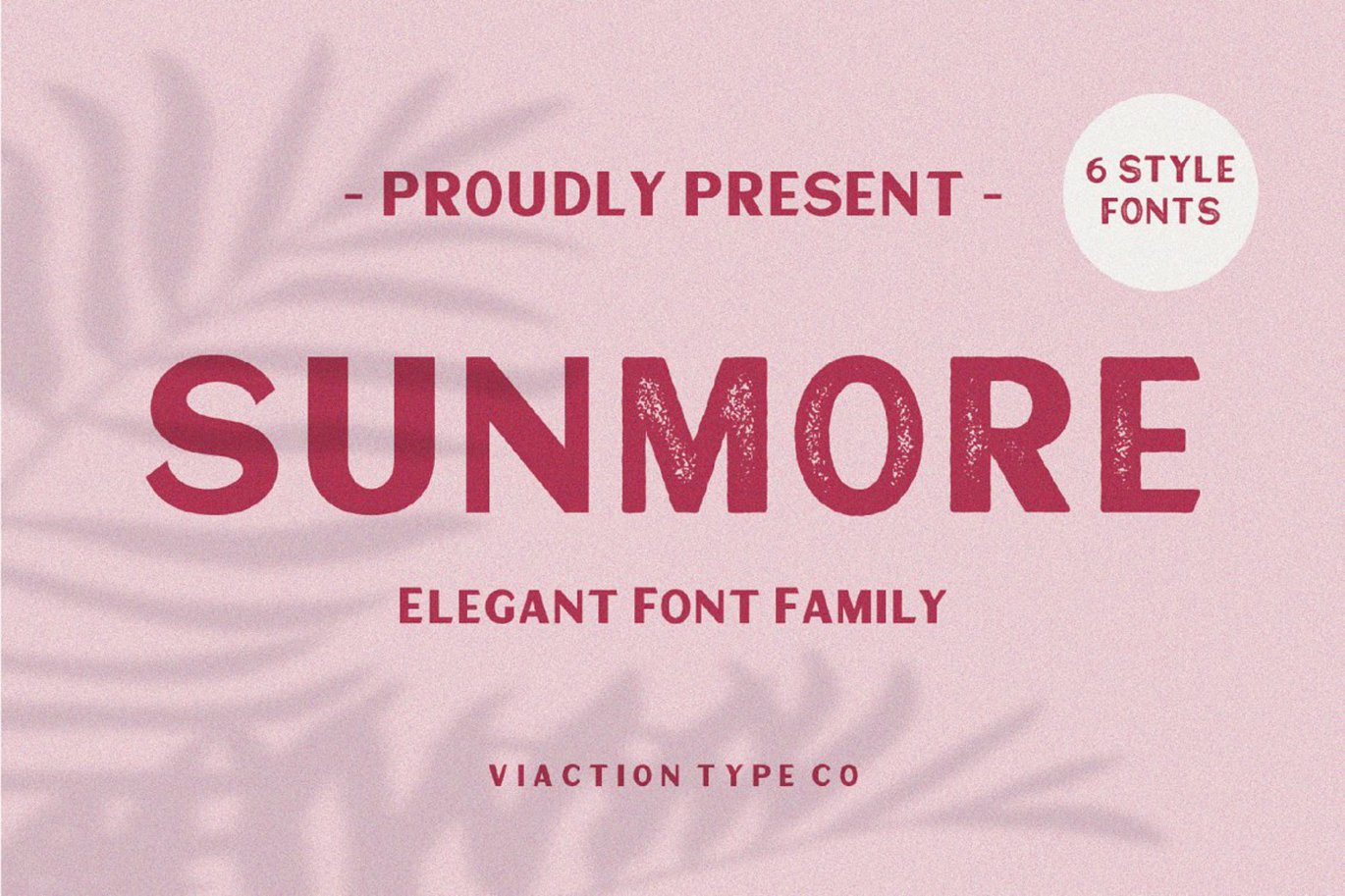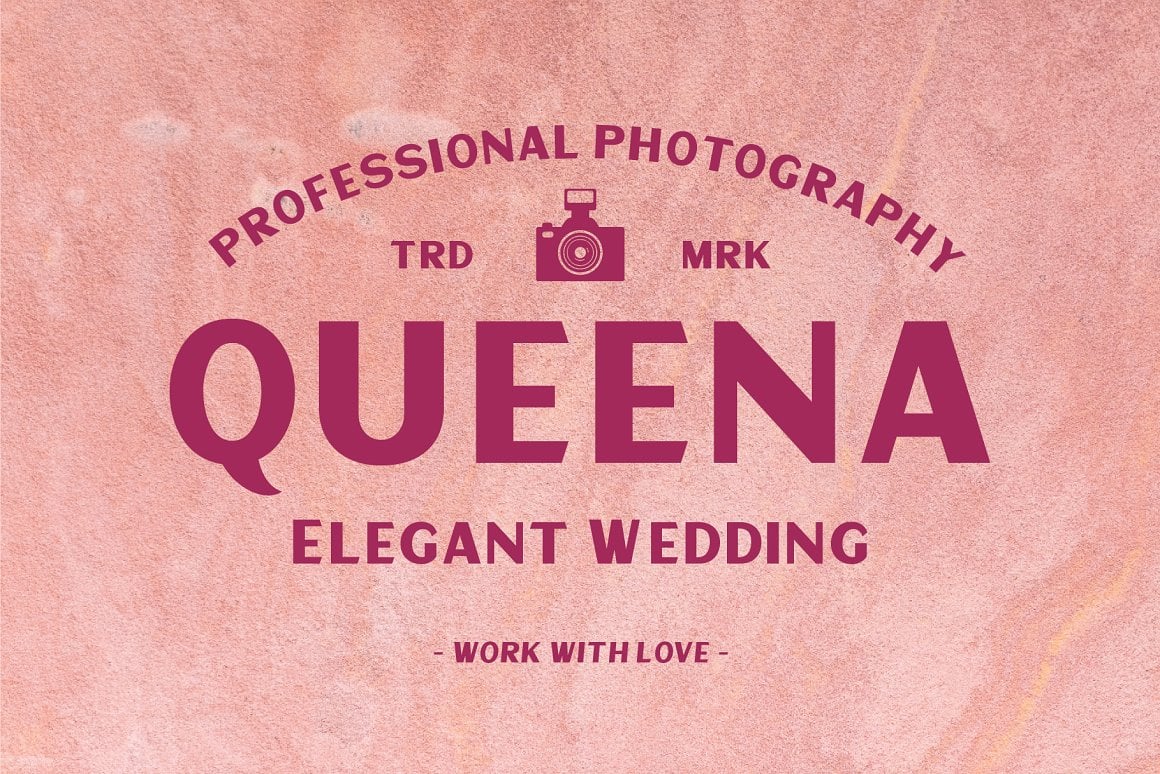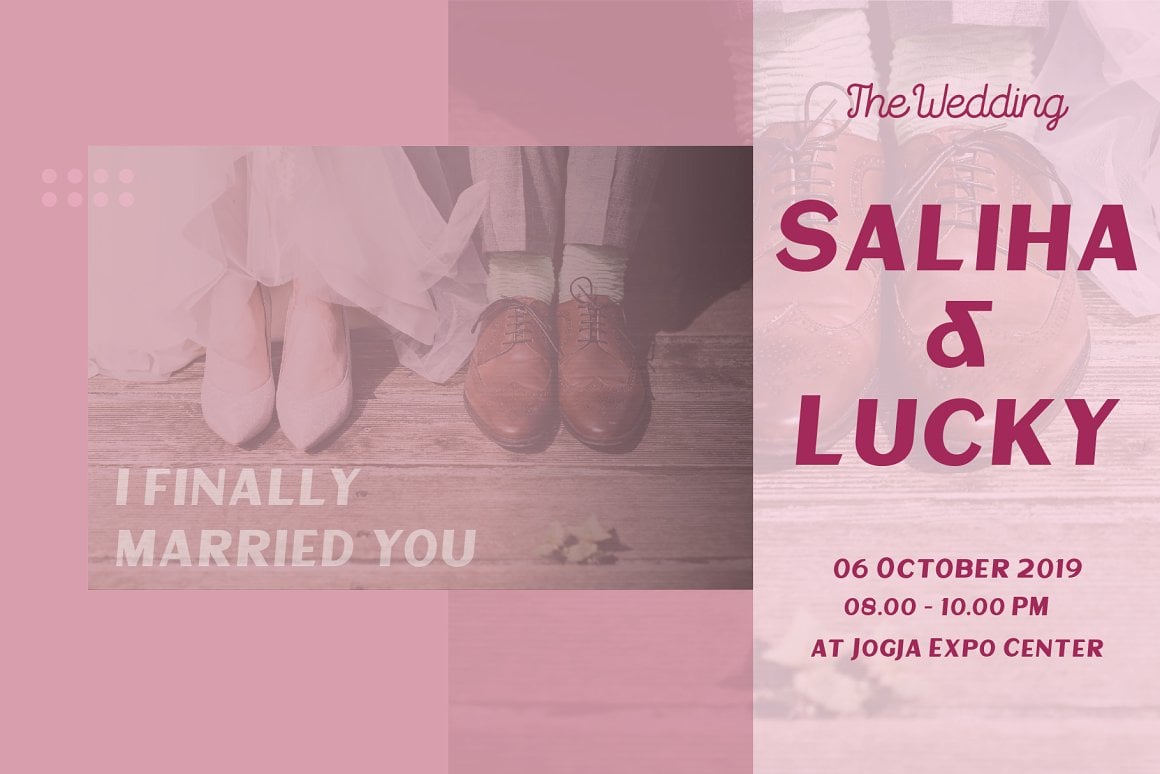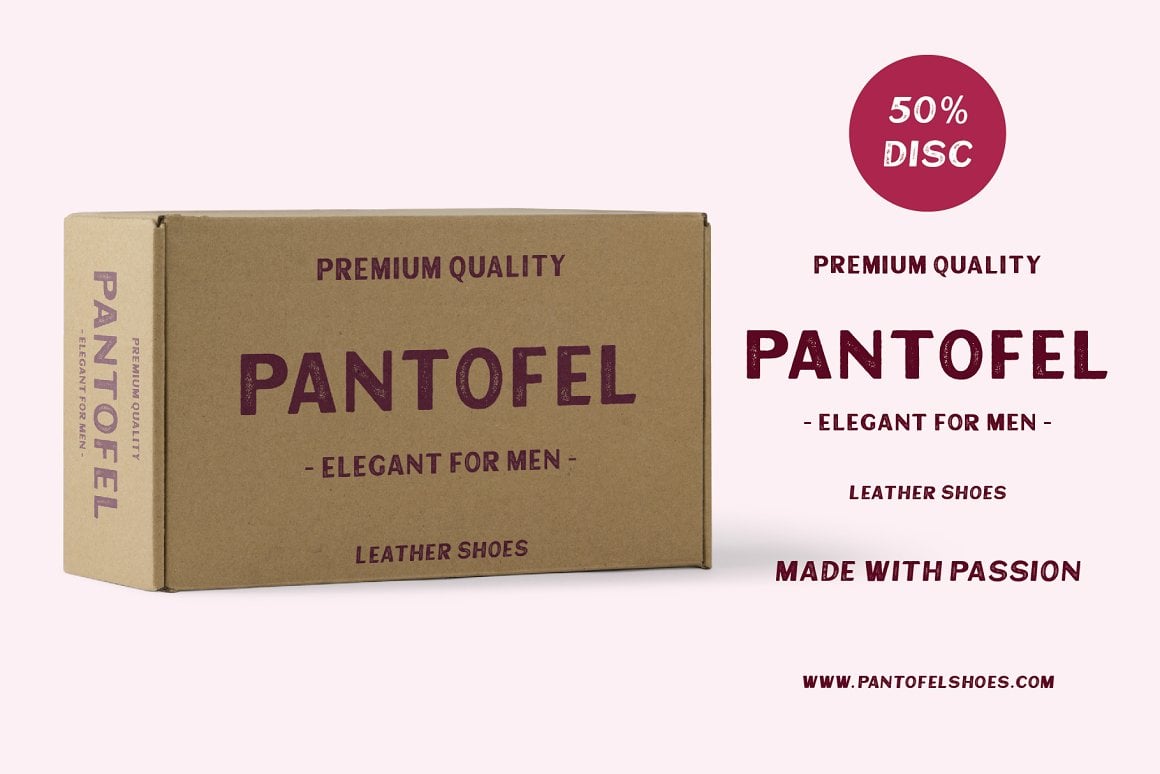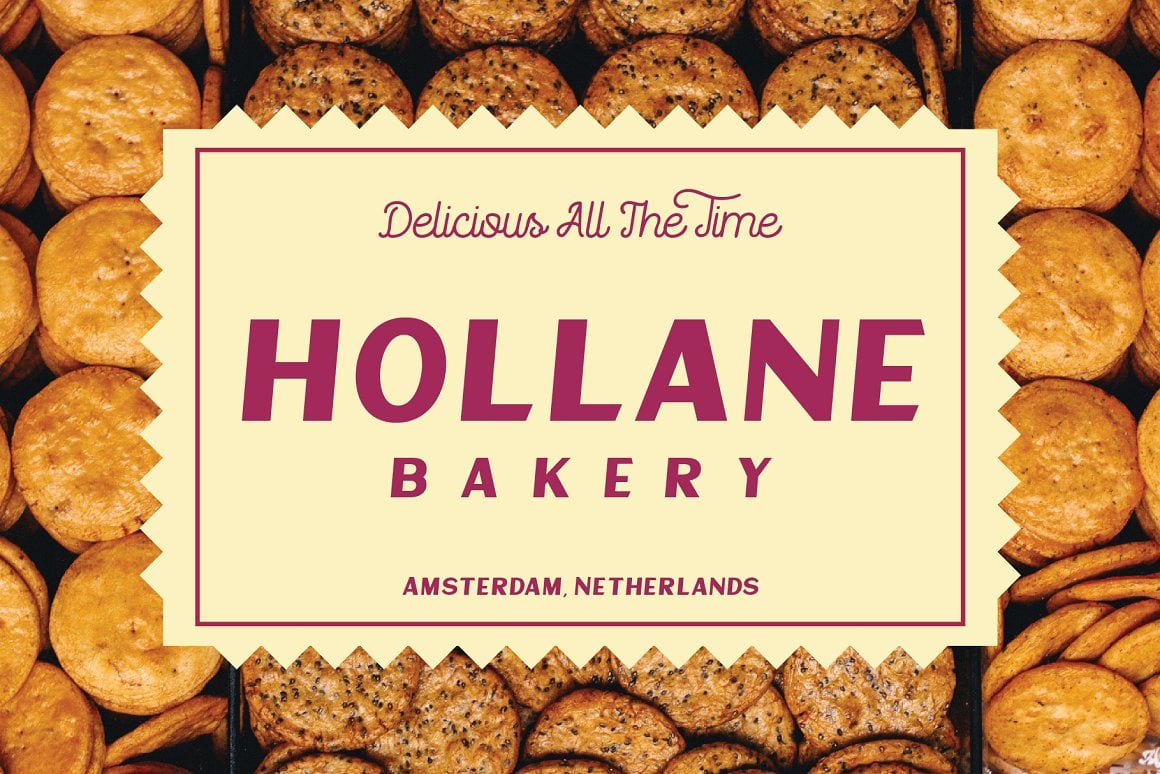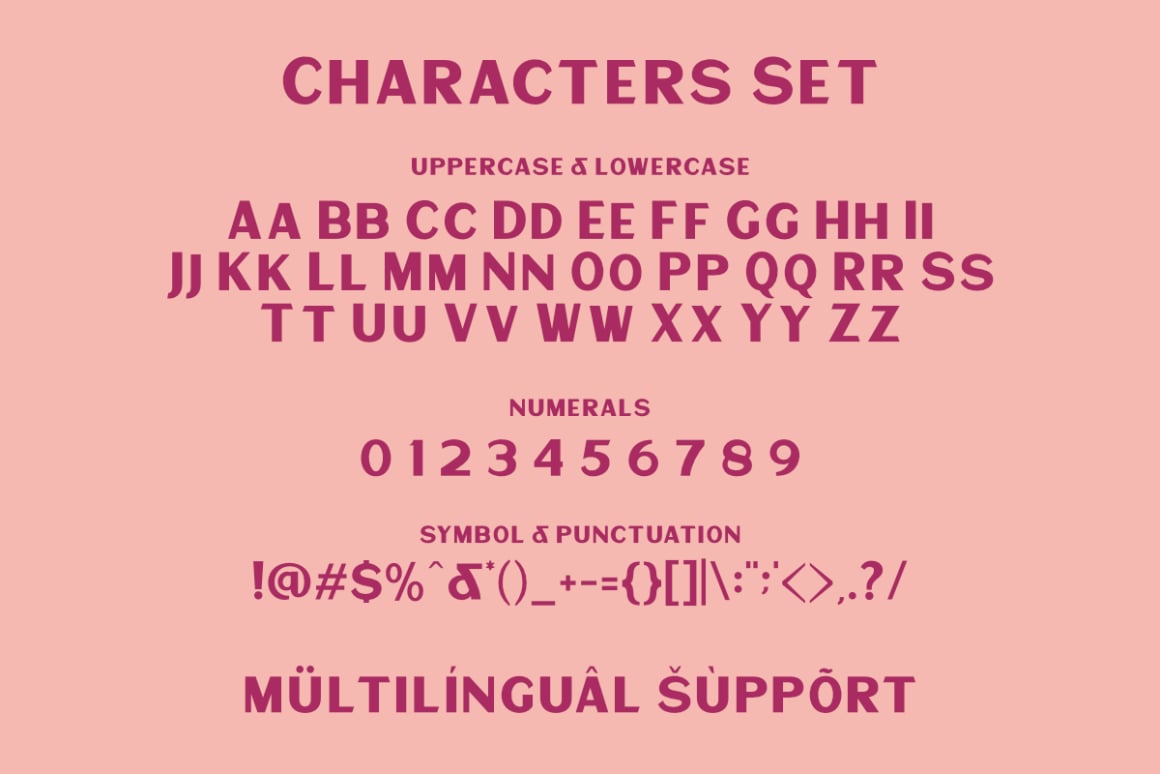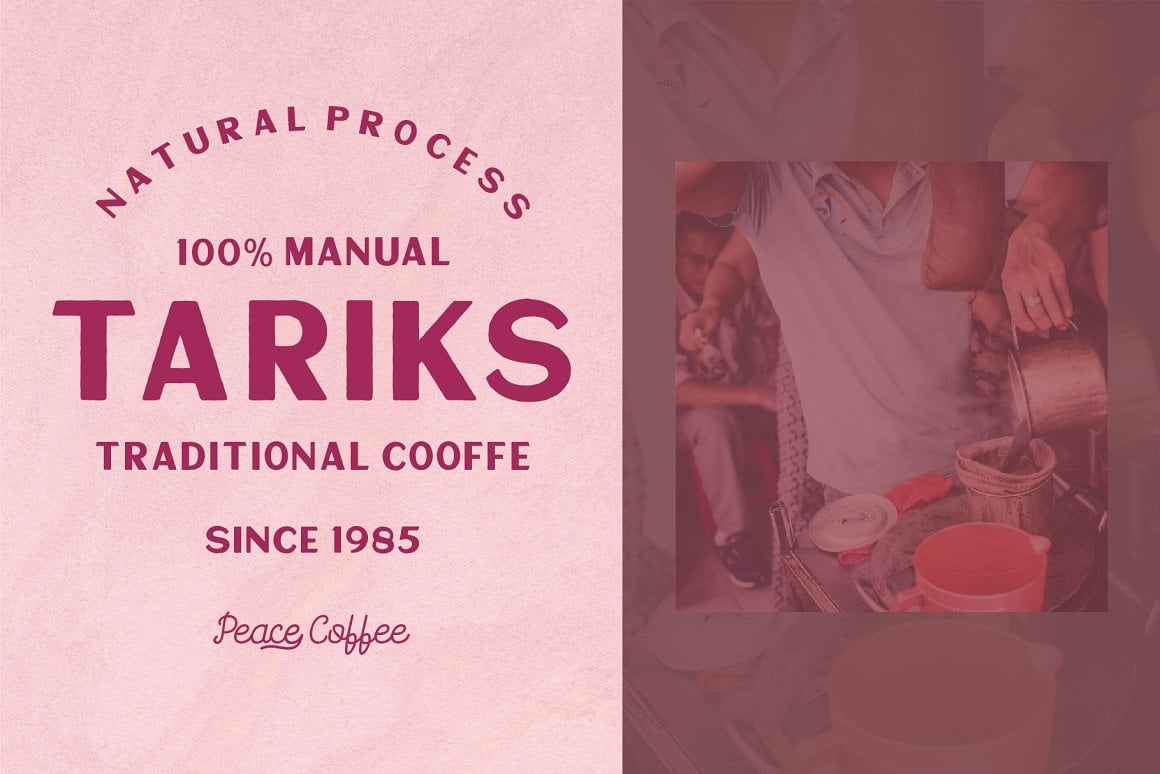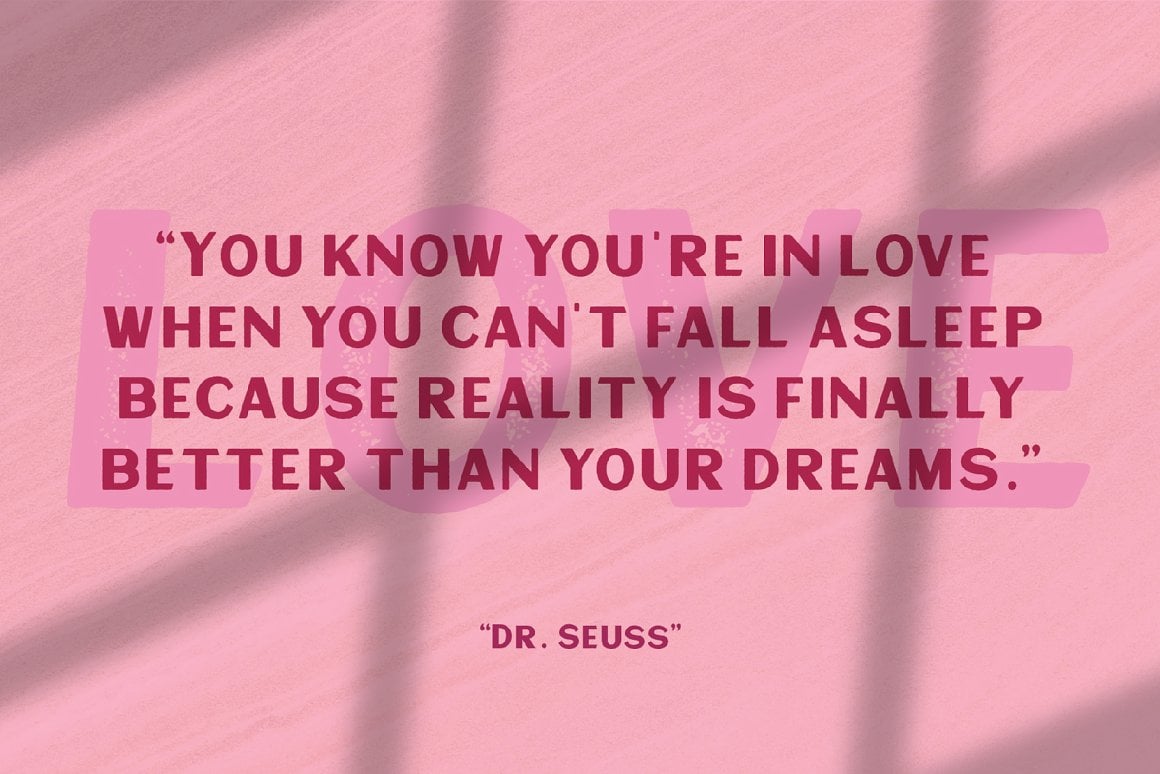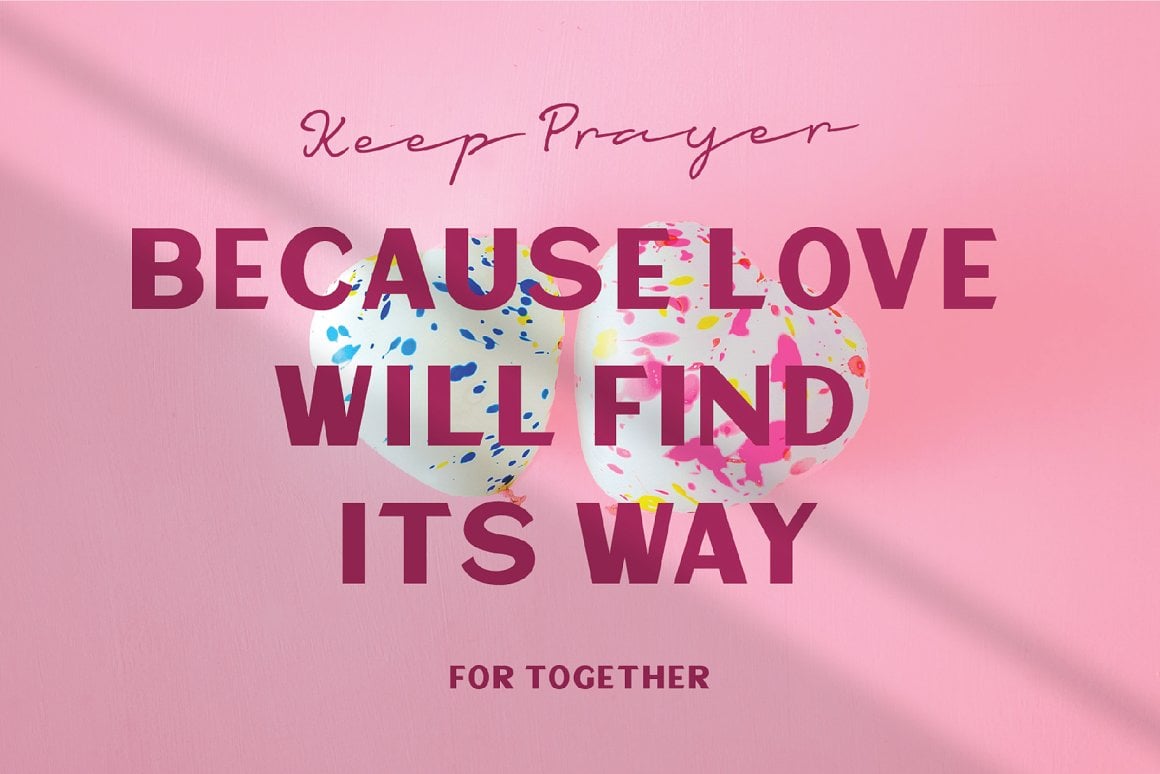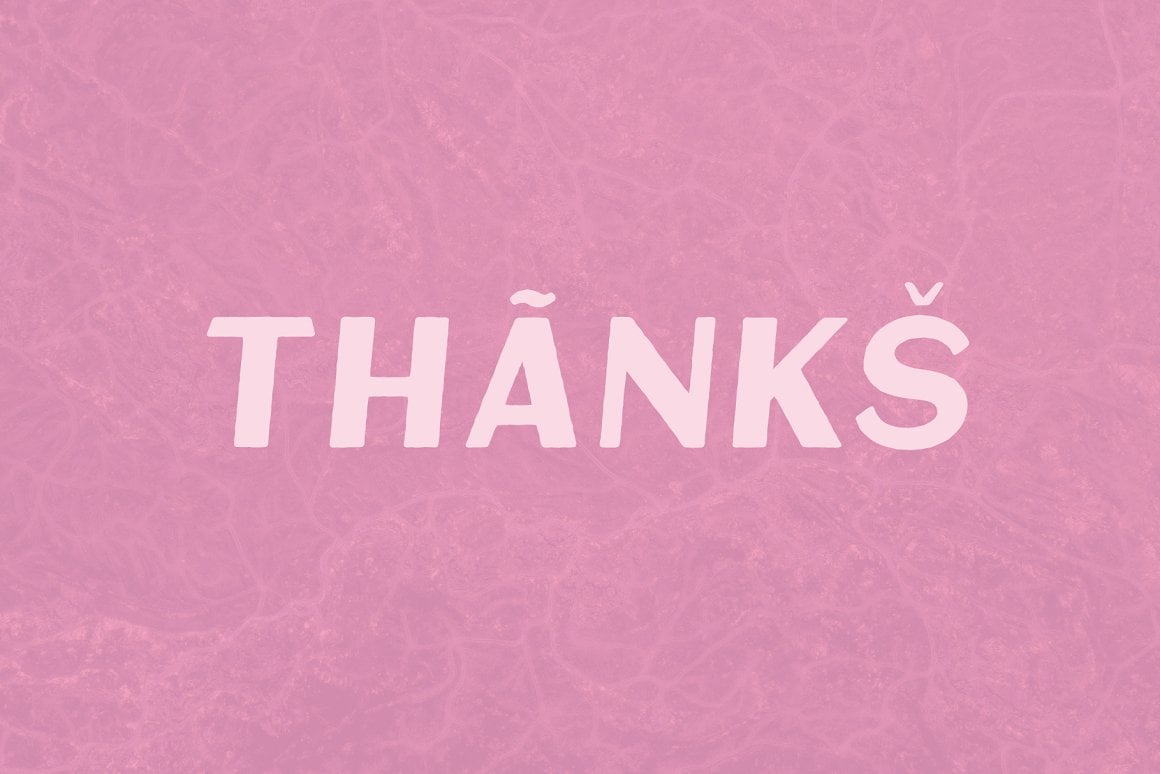
Sunmore Elegant Font
Sunmore is a sans serif font with elegant characters. Sunmore is perfect for your elegant-themed work, suitable also for elegant vintage. This font is available in six font style variants, making it easy to do work on various design themes. Sunmore is equipped with multilingual accents.